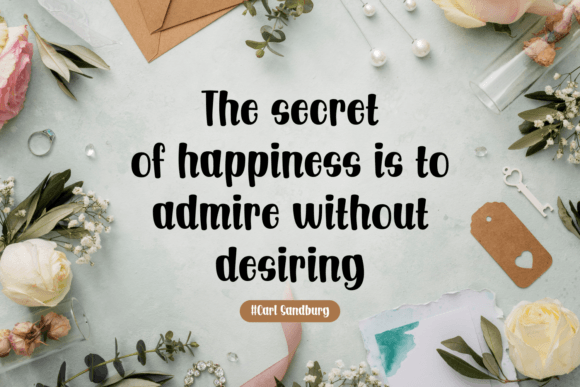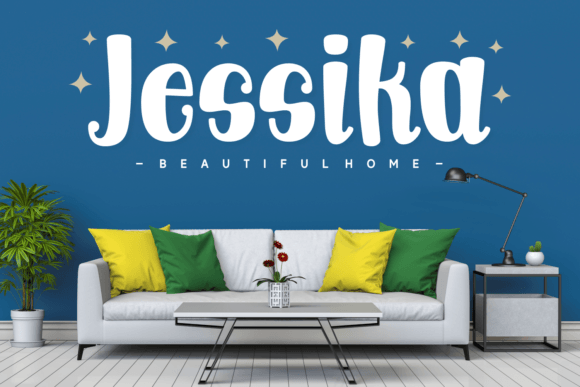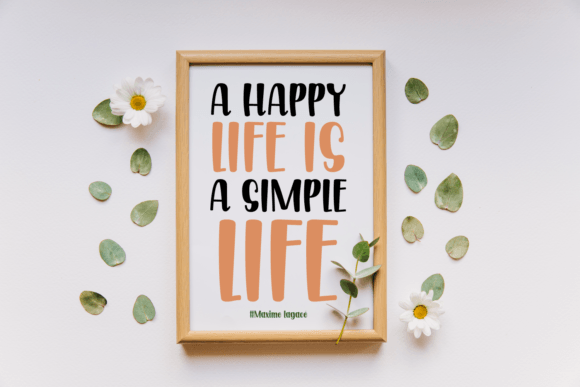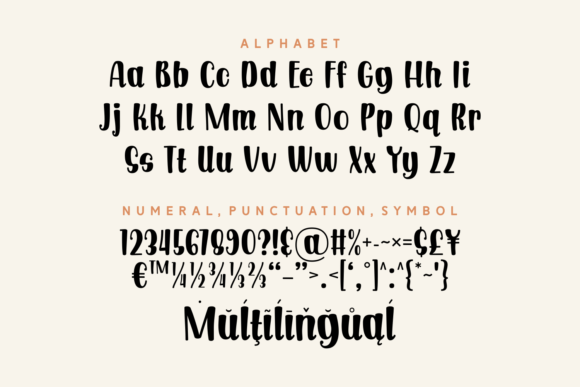
Brilliant Thought Font
About Brilliant Thought Font
Brilliant Thought is a beautifully unique handwritten font! This typeface is highly adaptable and has elegant characters and a lovely rhythm. It can be utilized for a variety of purposes, including logos, greeting cards, quotations, and site graphics.